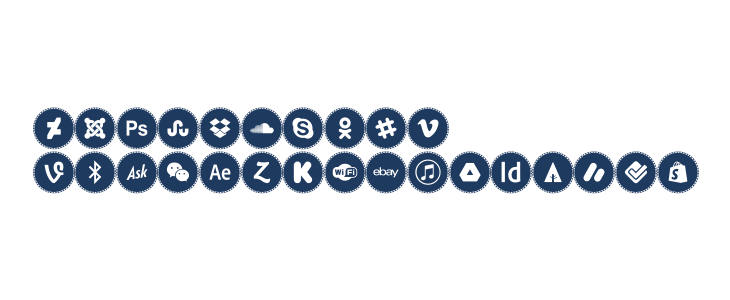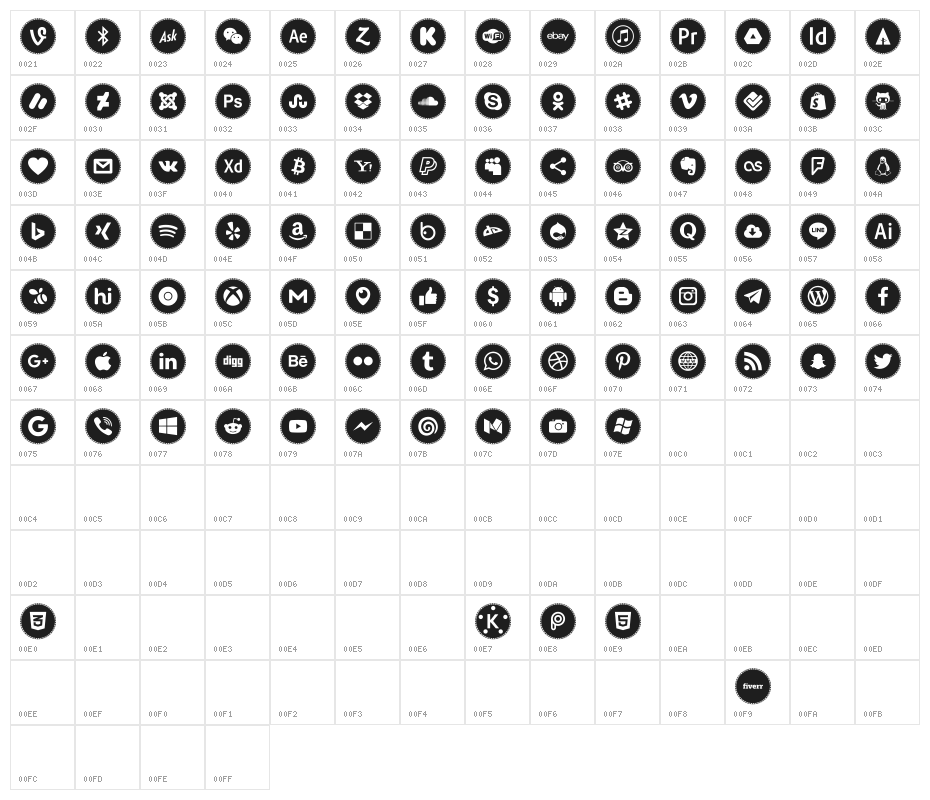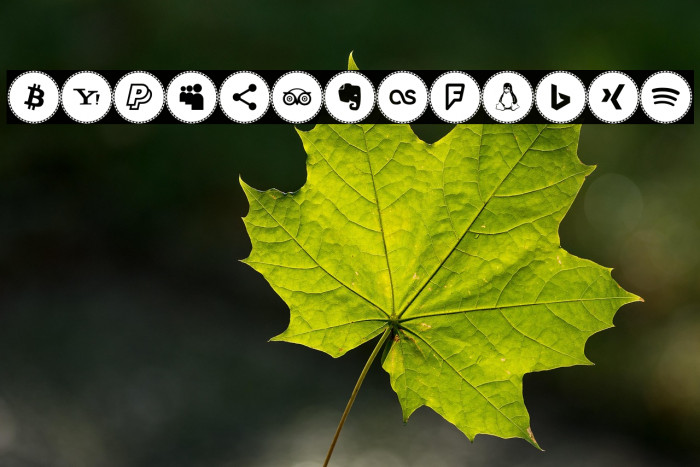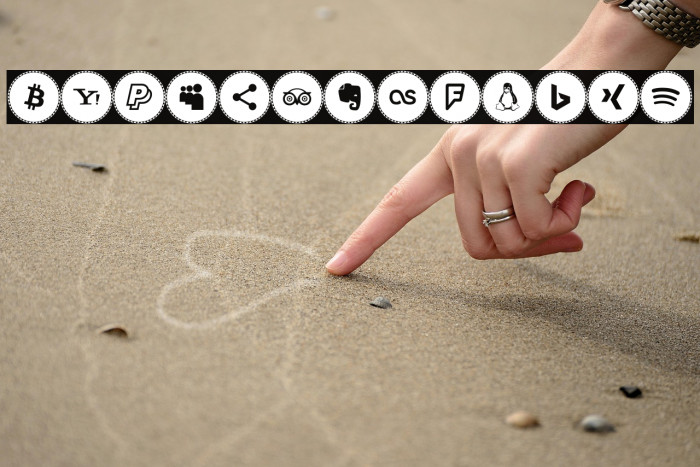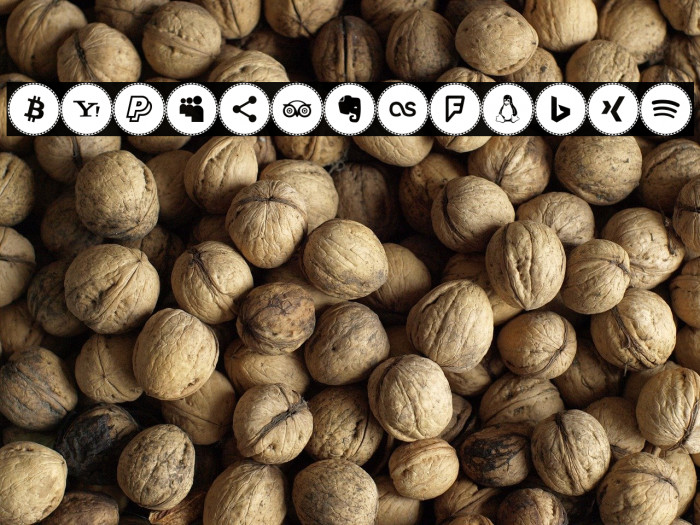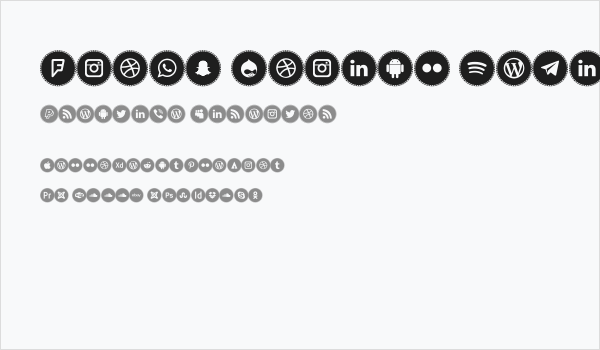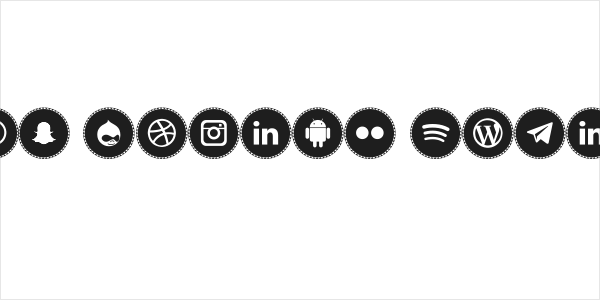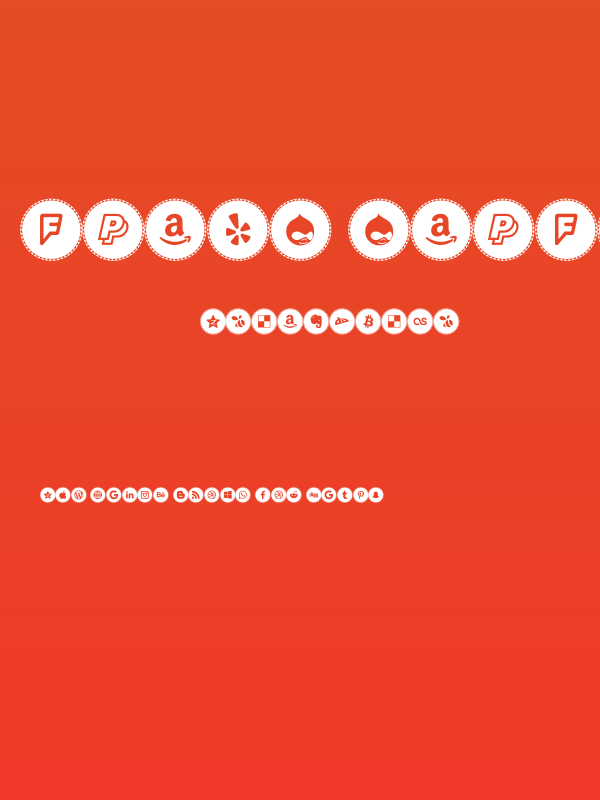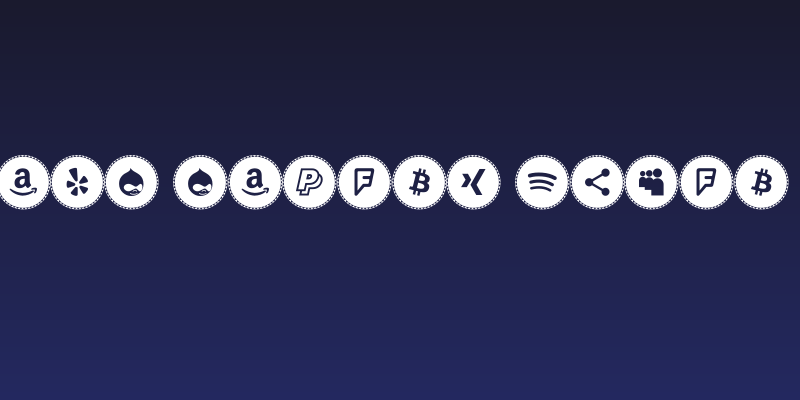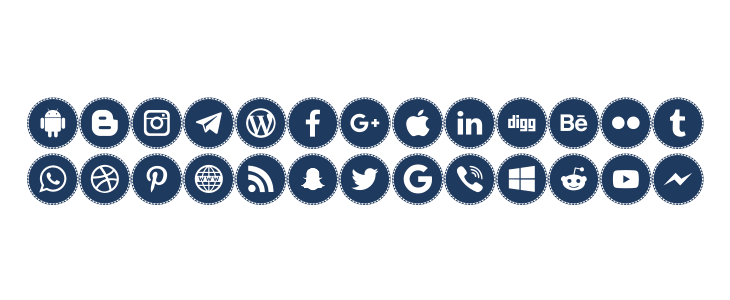
Icons Social Media 11 Font
Icons Social Media 11 Description
This font includes 123 characters. Click on any character to see details.
| Overall Style | Modern, Minimalist, Iconic |
| Use Case | Icons, UI elements, navigation, branding, social media links. |
| Proposed Projects | Websites, app interfaces, presentations, digital portfolios, social media banners, business cards. |